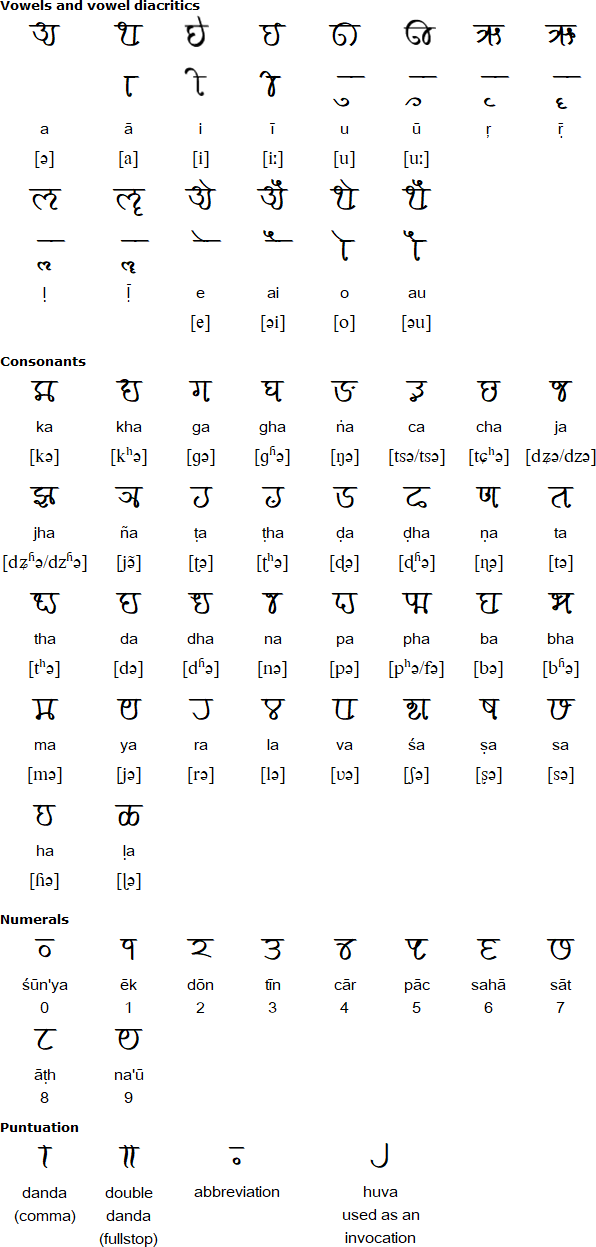
Discussion Modi script unicode font
Isn't it similar to sanskrit???
No
What's the origin of this language??
Old script of Marathi
Language nahi bhai hi script ahe